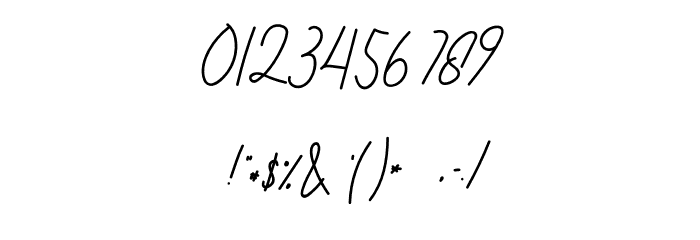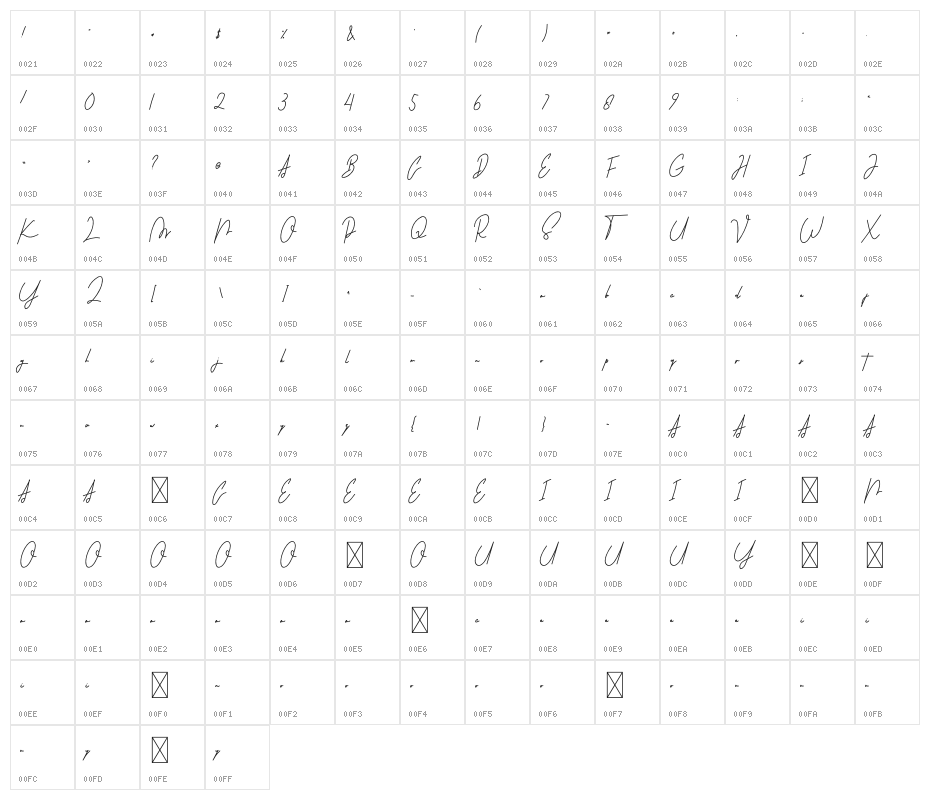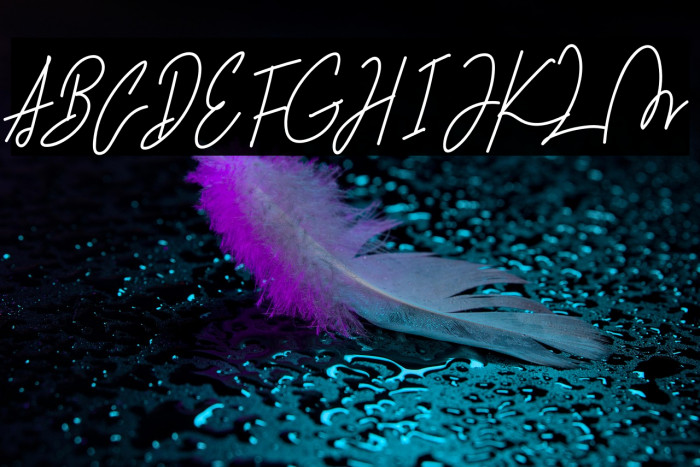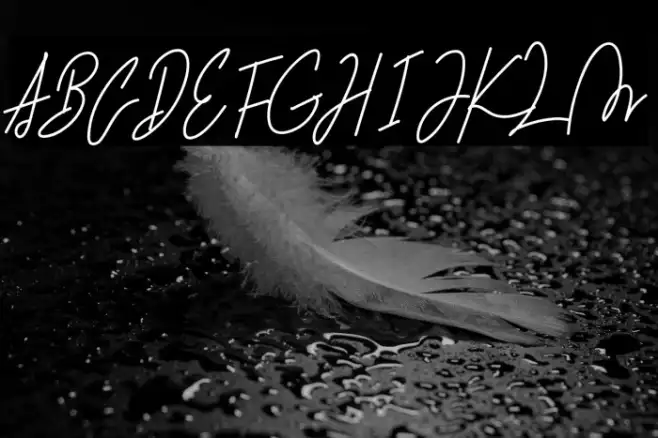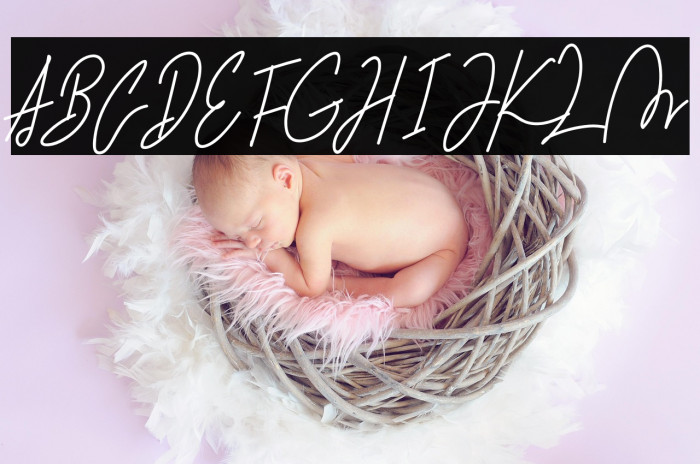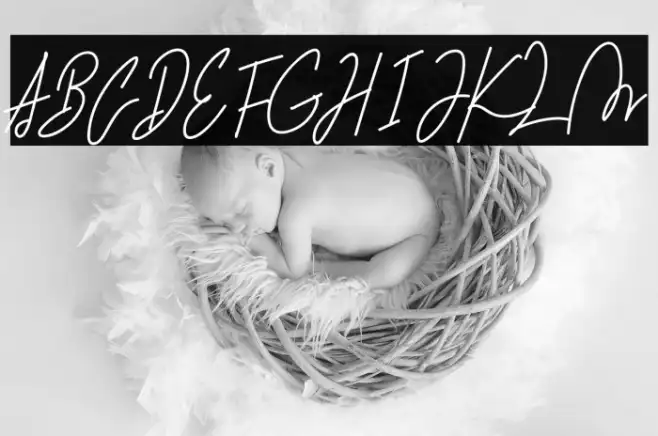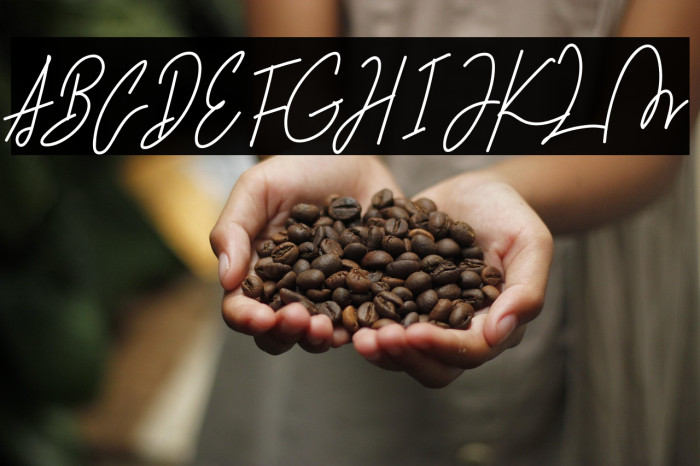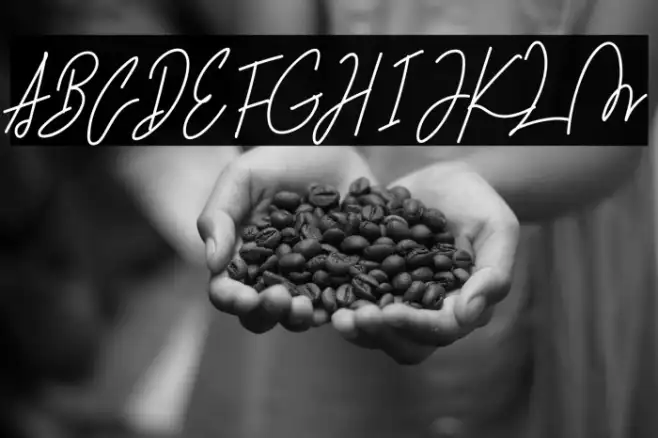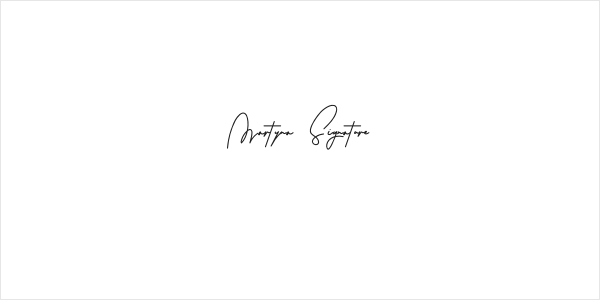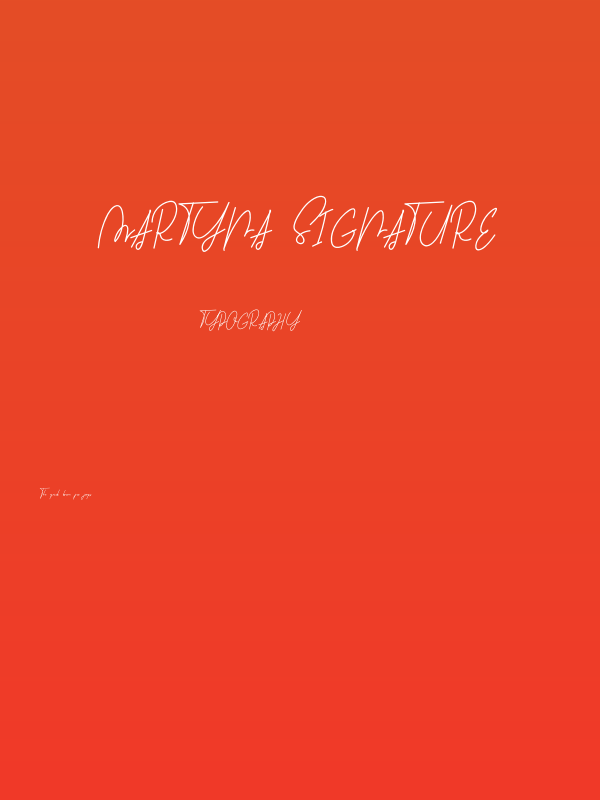
Martyna Signature Font
Martyna Signature Description
This font exudes a personal and artistic flair, characterized by its fluid, cursive strokes that mimic the natural flow of handwriting. The letters are elegantly connected, creating a seamless and sophisticated appearance. The uppercase letters are bold and prominent, while the lowercase letters maintain a delicate and graceful form. The numerals and special characters are crafted with the same attention to detail, ensuring consistency throughout. This font is perfect for adding a touch of elegance and individuality to any design project.